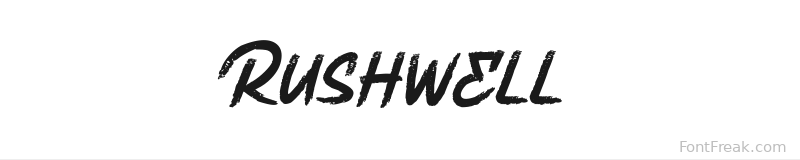
Rushwell
About Rushwell
Rushwell, designed by Mukhlis Muhammad in 2020, is a striking display font that embodies a modern yet artistic flair. This unique typeface falls under the variatype category, showcasing a playful and dynamic character that makes it an excellent choice for a variety of design projects. With its bold stroke weight and eye-catching contrast, Rushwell brings a sense of energy to any design. The spacing is meticulously crafted to ensure legibility while allowing the font's expressive features to shine through.
This font is particularly well-suited for creative applications such as wedding invitations, where its stylish and contemporary aesthetic can add a personal touch. Its bold nature also makes it perfect for movie posters, capturing attention and conveying the excitement of the film. Restaurant menus can benefit from Rushwell's unique charm, enhancing the overall dining experience with a visually appealing design. Additionally, content creators looking to elevate their social media graphics will find Rushwell to be an engaging choice that stands out in crowded feeds.
Targeted towards graphic designers, small business owners, and content creators, Rushwell appeals to those seeking to infuse their work with a distinct and memorable voice. Its versatility allows it to adapt to various themes, making it an ideal font for both formal and informal contexts.
What sets Rushwell apart is its ability to combine boldness with artistic flair, making it not just a font but a statement. Its free availability as a freeware font allows creatives to explore its potential without financial barriers. For those in search of a distinctive typeface, the Rushwell font free download offers an opportunity to enhance their designs with a touch of originality and style.